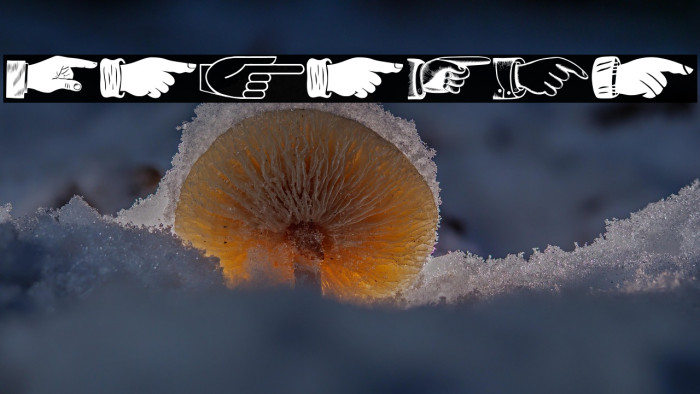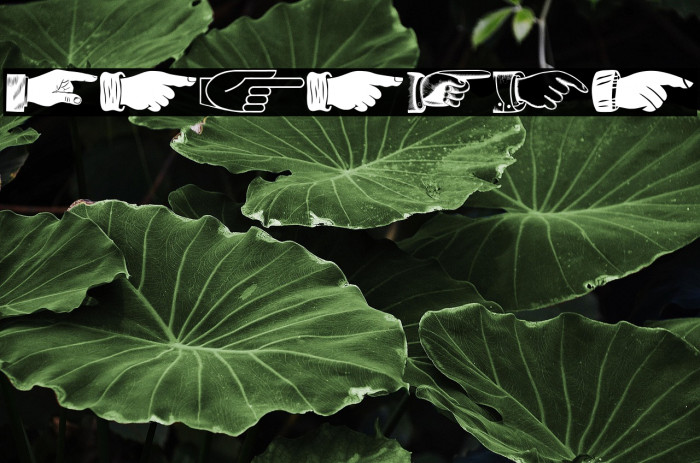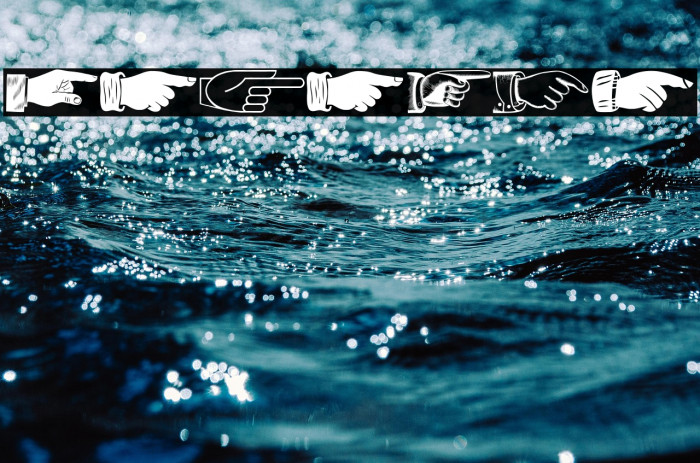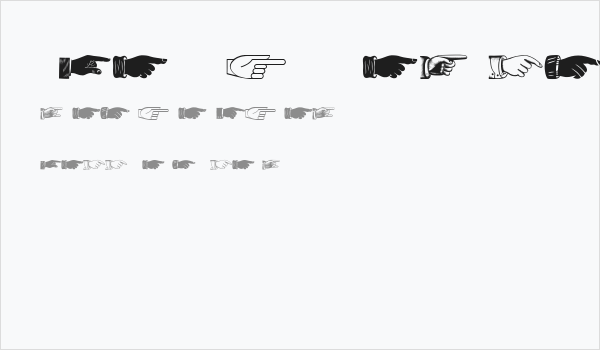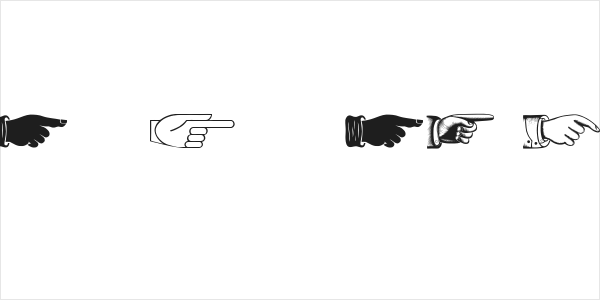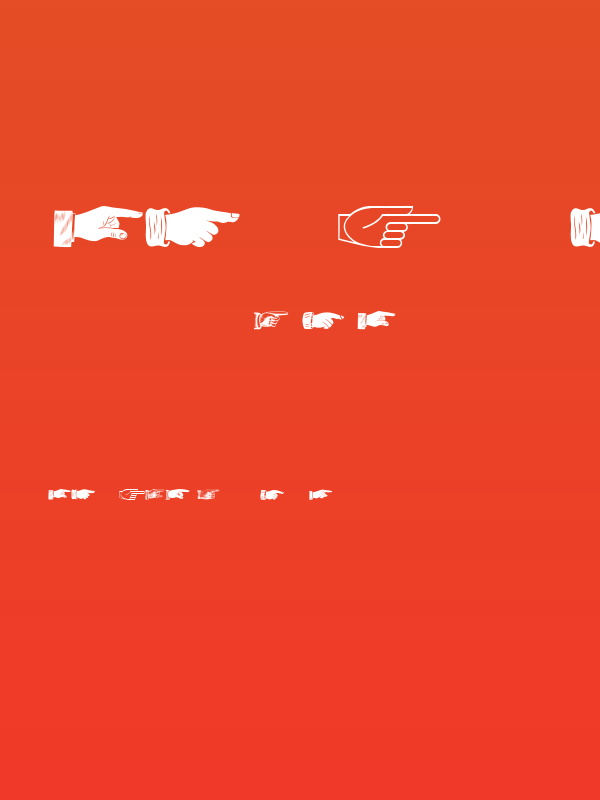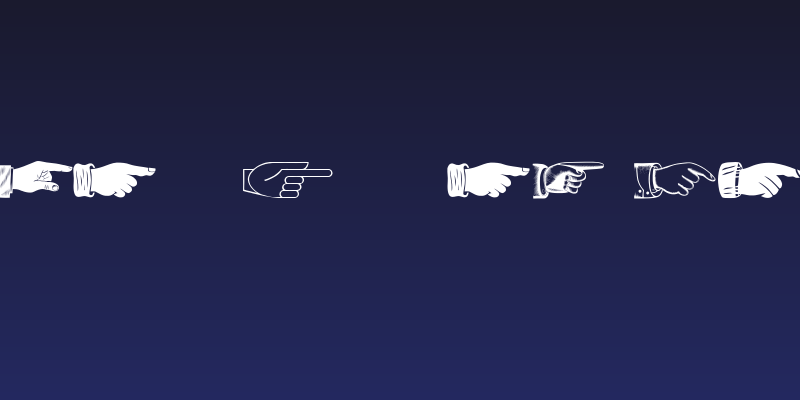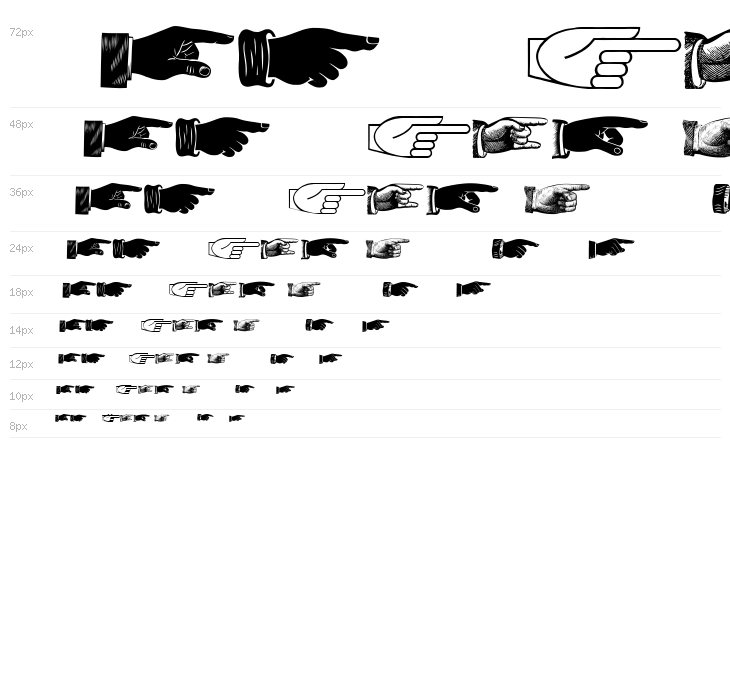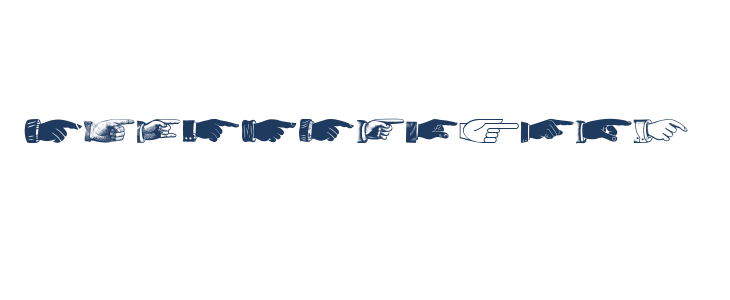
The Point Regular Font
The Point Regular Description
A decorative dingbat font featuring various styles of pointing hand illustrations, including solid, outline, and textured versions. Each character is represented by a unique hand graphic, evoking a vintage or retro aesthetic.
| Overall Style | Vintage, Decorative |
| Use Case | Ornaments, Borders, Decorative elements |
| Proposed Projects | Posters, signage, invitations, editorial design, branding, and vintage-themed graphics. |